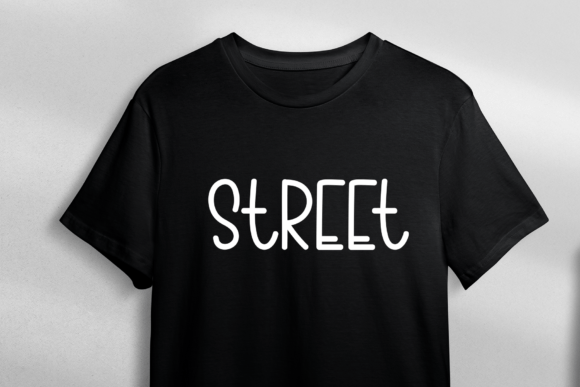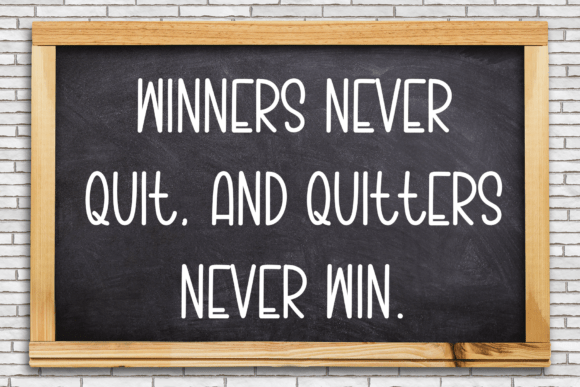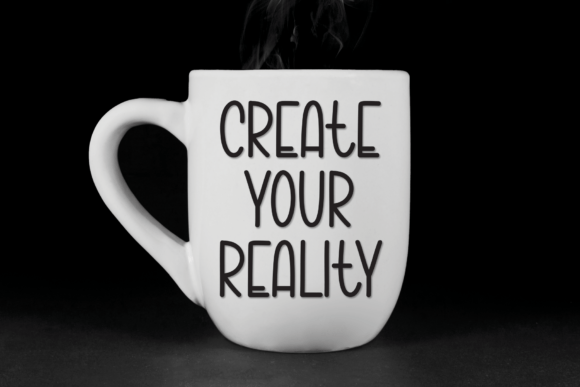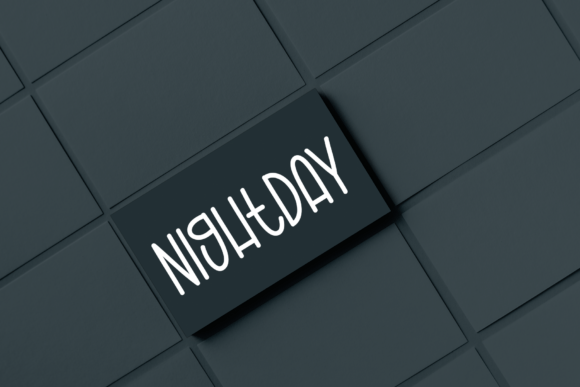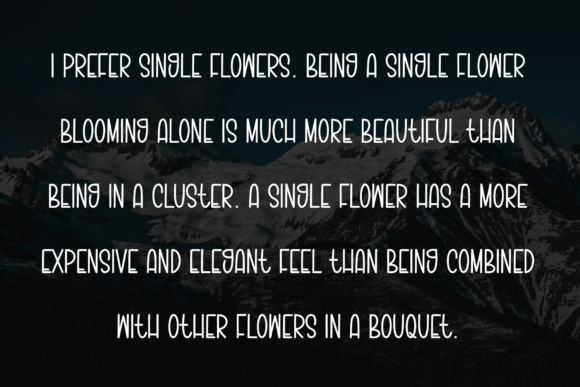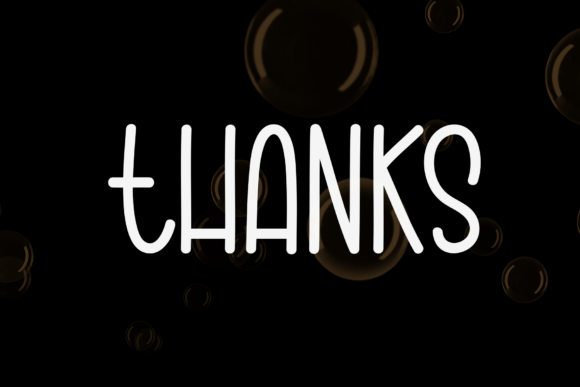
Introducing Black Bubble Font: The Playful and Modern Display Typeface
Are you looking for a font that can add a touch of playfulness and modernity to your designs? Look no further than Black Bubble Font, a clean handwritten typeface that is perfect for creating eye-catching designs that need both clarity and charm. In this article, we’ll take a closer look at the features and benefits of Black Bubble Font, and explore how it can be used to elevate your designs.
A Playful and Approachable Character
Black Bubble Font is a display typeface that is characterized by its tall, rounded letters, which bring a fun and approachable character to any design. The font’s clean handwritten style gives it a friendly and informal feel, making it perfect for designs that need to connect with a younger audience or convey a sense of playfulness. Whether you’re designing a logo, poster, or social media graphic, Black Bubble Font is sure to make your message stand out with style.
Versatile and Adaptable
One of the key benefits of Black Bubble Font is its versatility. The font works beautifully in both bold and minimalistic layouts, making it adaptable to a wide range of design applications. Whether you’re creating a children’s book, designing a product package, or crafting an invitation, Black Bubble Font is the perfect choice. The font’s smooth letterforms and casual flow create a friendly vibe that is sure to engage your audience and leave a lasting impression.
So, what sets Black Bubble Font apart from other fonts? Here are some of its key features:
- Uppercase and Lowercase Characters: Black Bubble Font includes both uppercase and lowercase characters, giving you the flexibility to create a wide range of designs.
- Numerals and Punctuation: The font includes numerals and punctuation marks, making it easy to create complex designs.
- Multilingual Support: Black Bubble Font supports multiple languages, making it a great choice for designers who work with international clients.
Design Applications
So, how can you use Black Bubble Font in your designs? Here are some ideas to get you started:
- Logos: Black Bubble Font is perfect for creating fun and modern logos that need to stand out.
- Posters: The font’s bold and playful character makes it ideal for creating eye-catching posters.
- Packaging: Black Bubble Font can add a touch of personality to product packaging and make it more engaging.
- Children’s Books: The font’s playful and approachable character makes it perfect for children’s books and educational materials.
- Invitations: Black Bubble Font can add a touch of whimsy and fun to invitations and other stationery.
- Merchandise: The font’s bold and playful character makes it ideal for creating fun and eye-catching merchandise.
- Social Media Graphics: Black Bubble Font can help your social media graphics stand out and engage your audience.
In conclusion, Black Bubble Font is a playful and modern display typeface that is perfect for designers and crafters who want to add a touch of personality to their designs. With its clean handwritten style, tall rounded letters, and versatile features, Black Bubble Font is sure to make your message stand out with style. Whether you’re designing a logo, poster, or social media graphic, Black Bubble Font is the perfect choice. So why wait? Download Black Bubble Font today and start creating eye-catching designs that engage and inspire your audience.